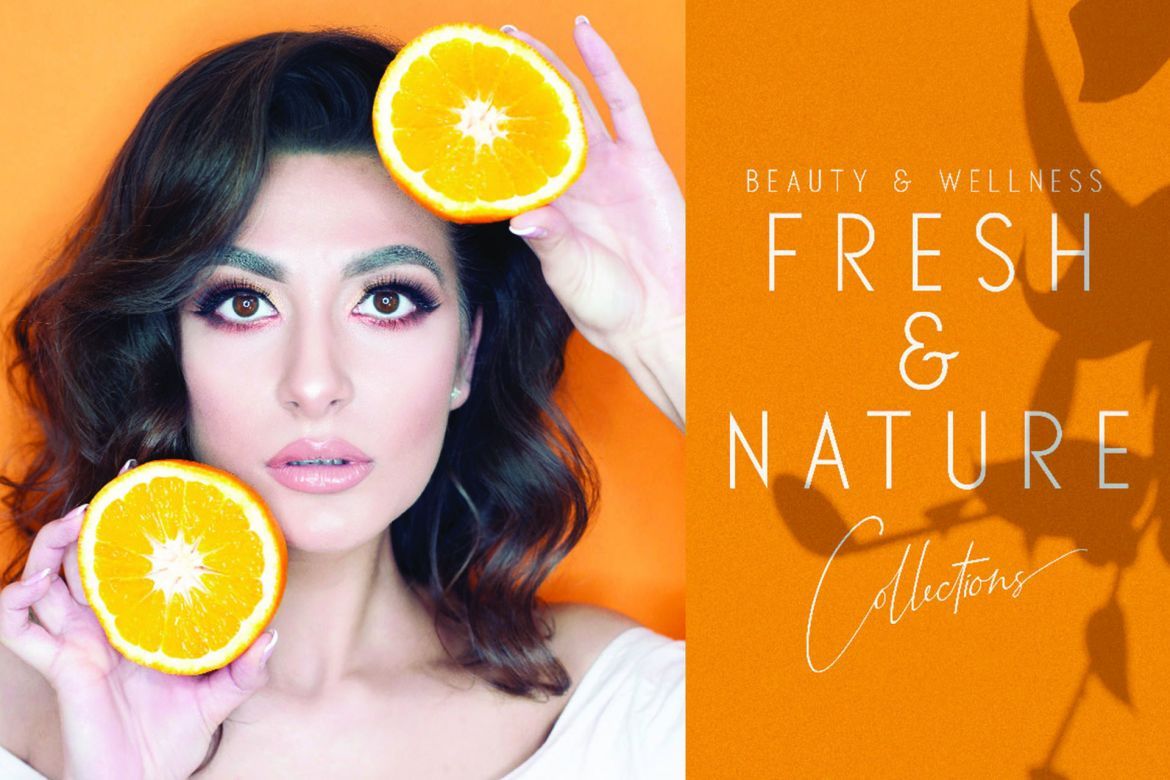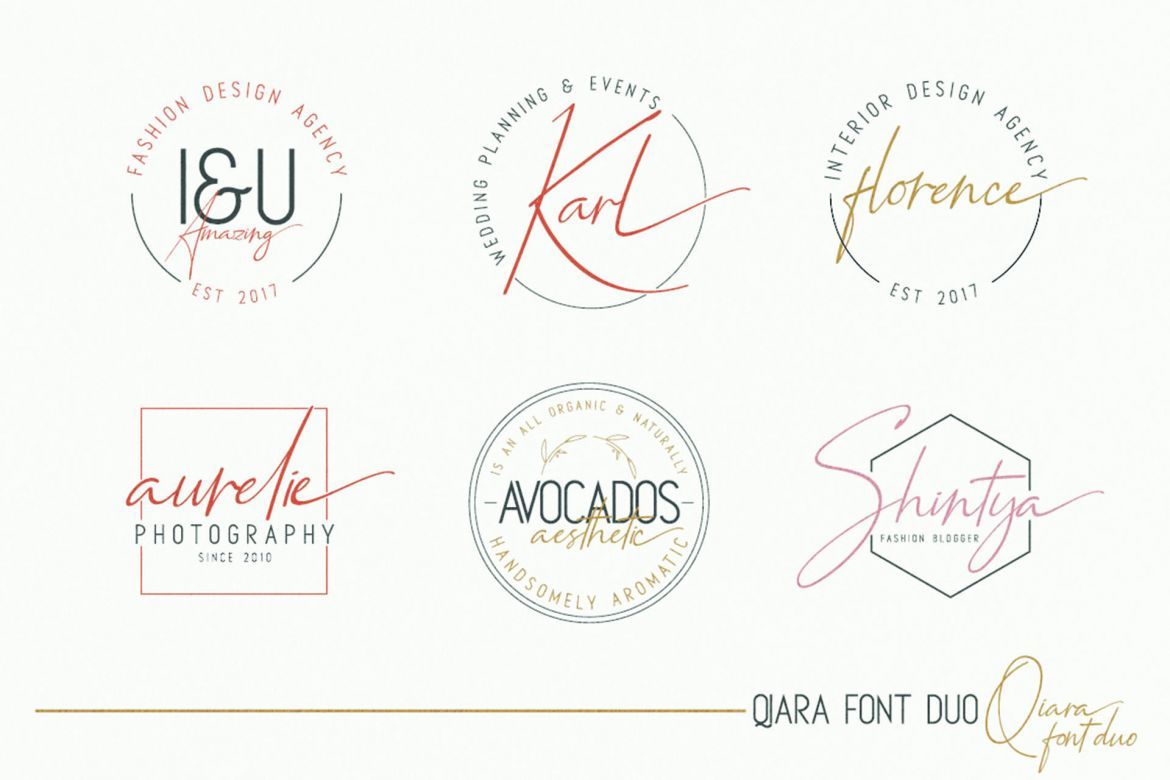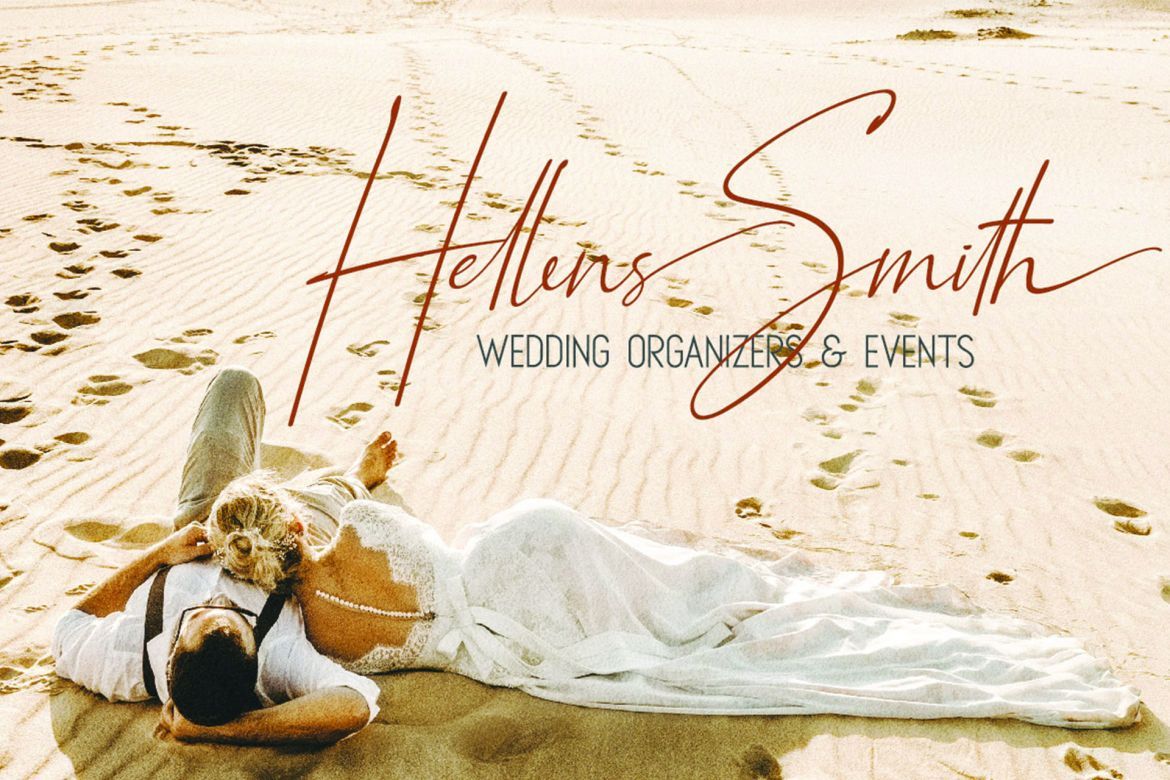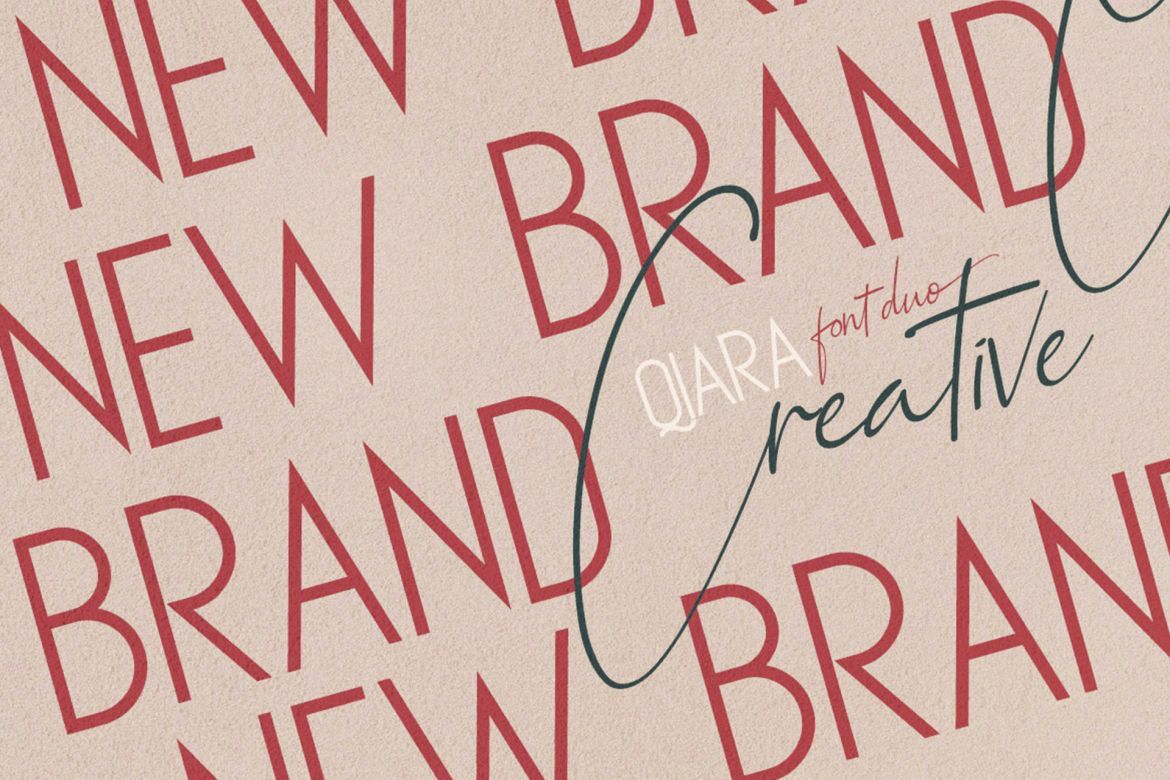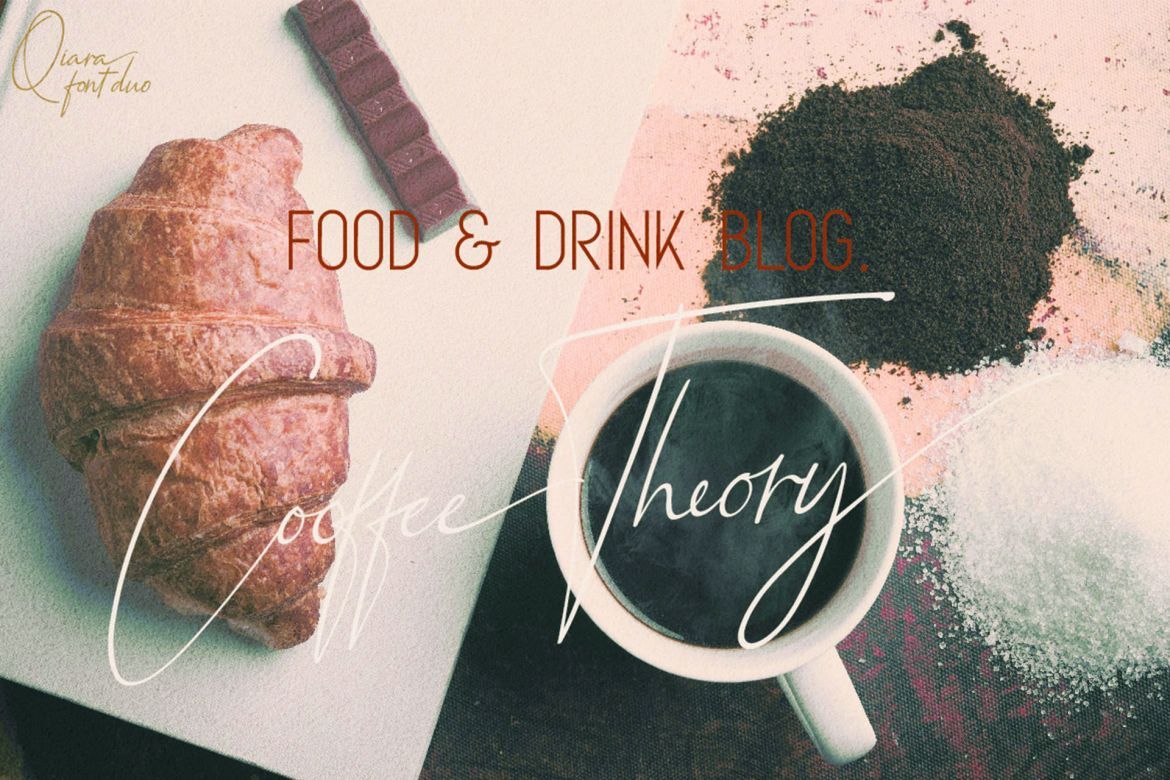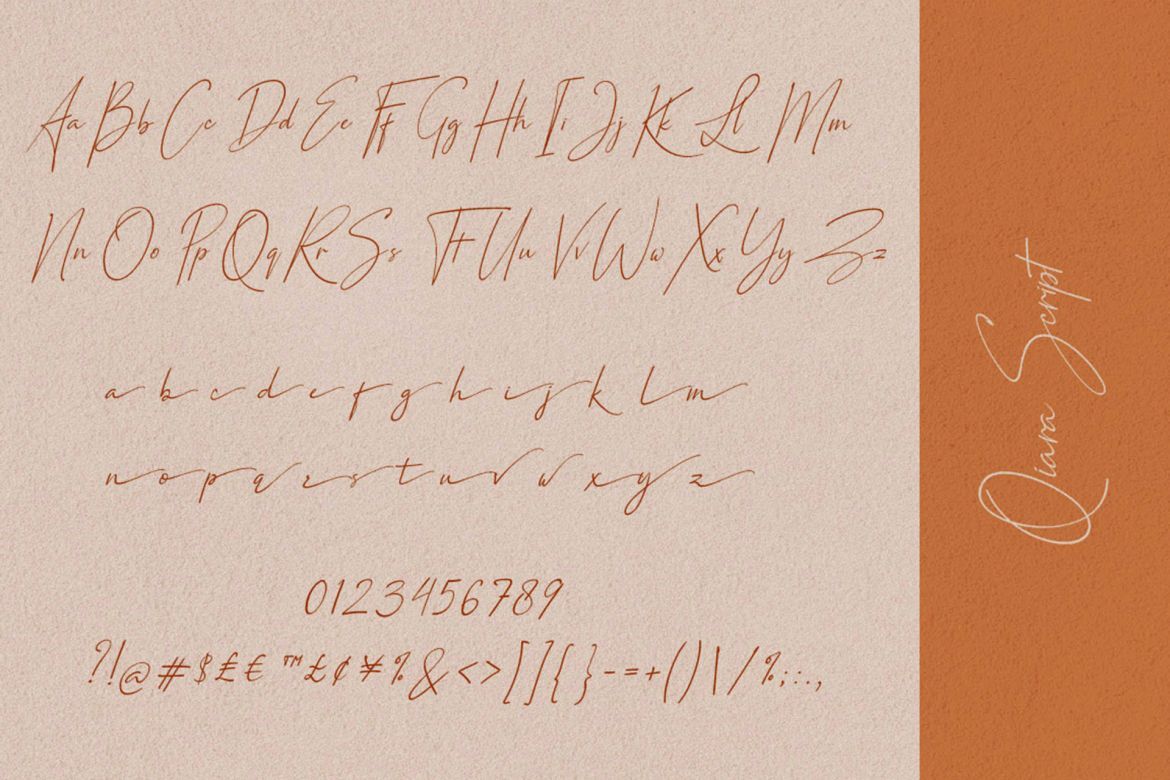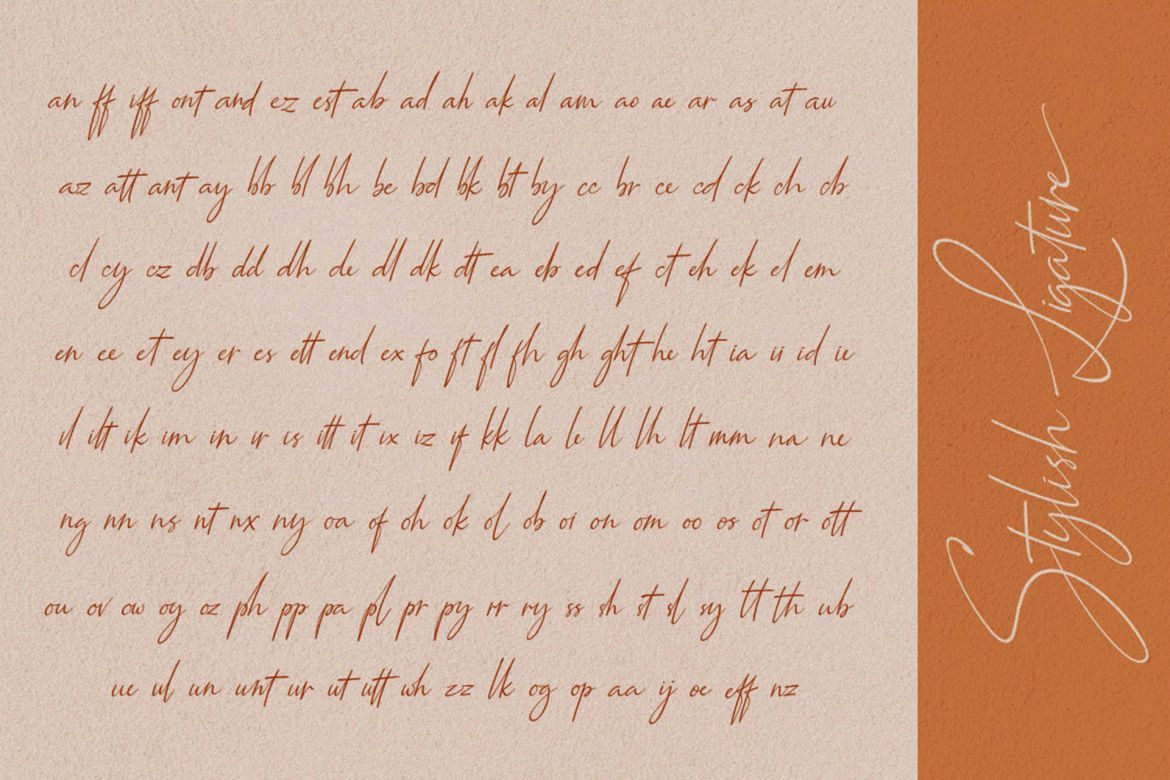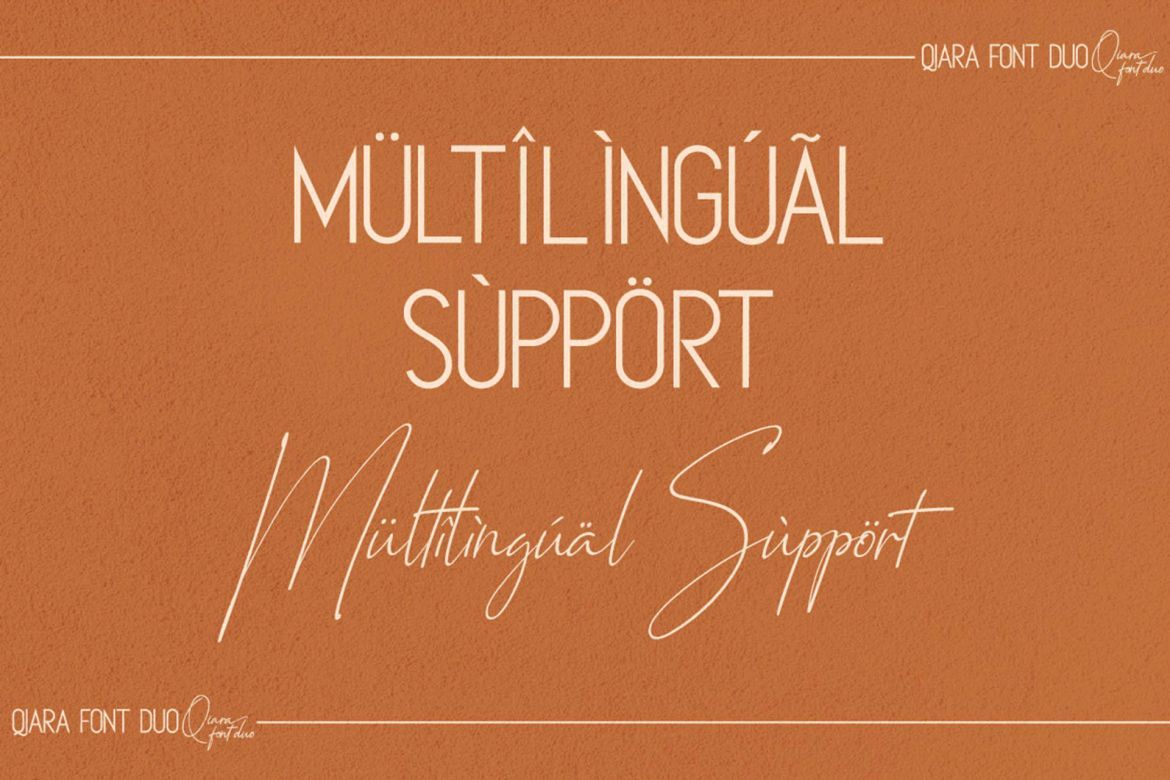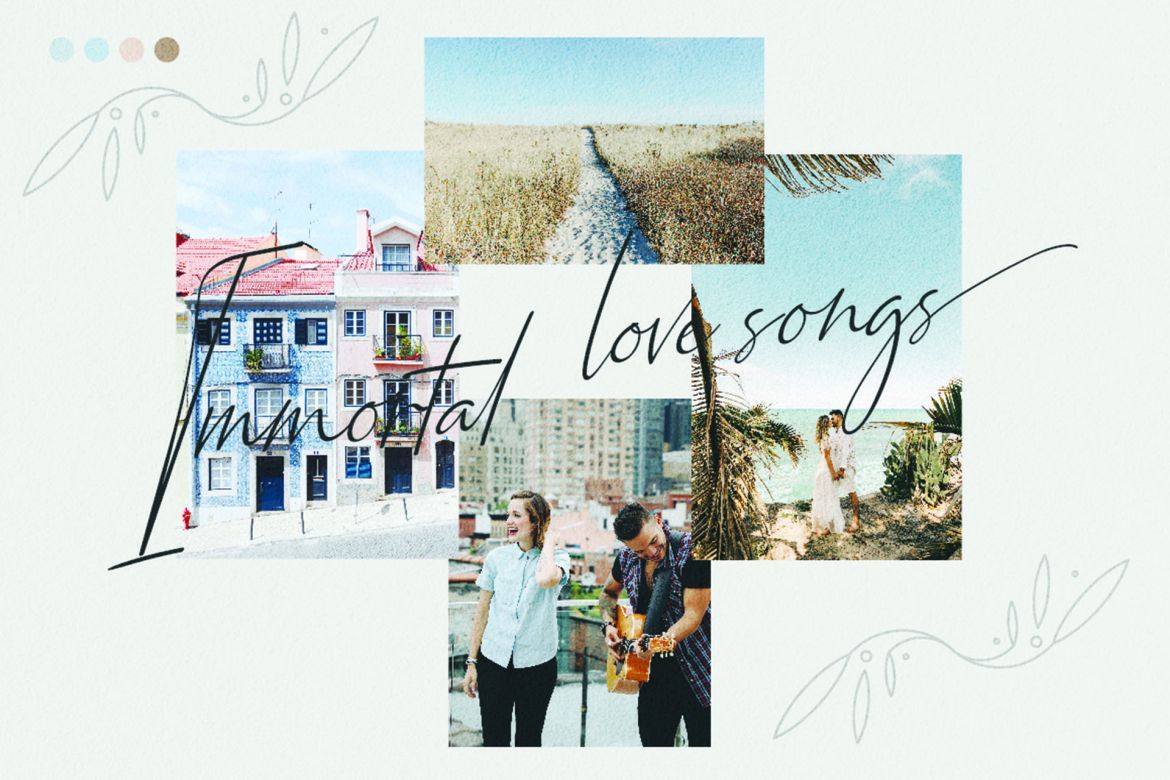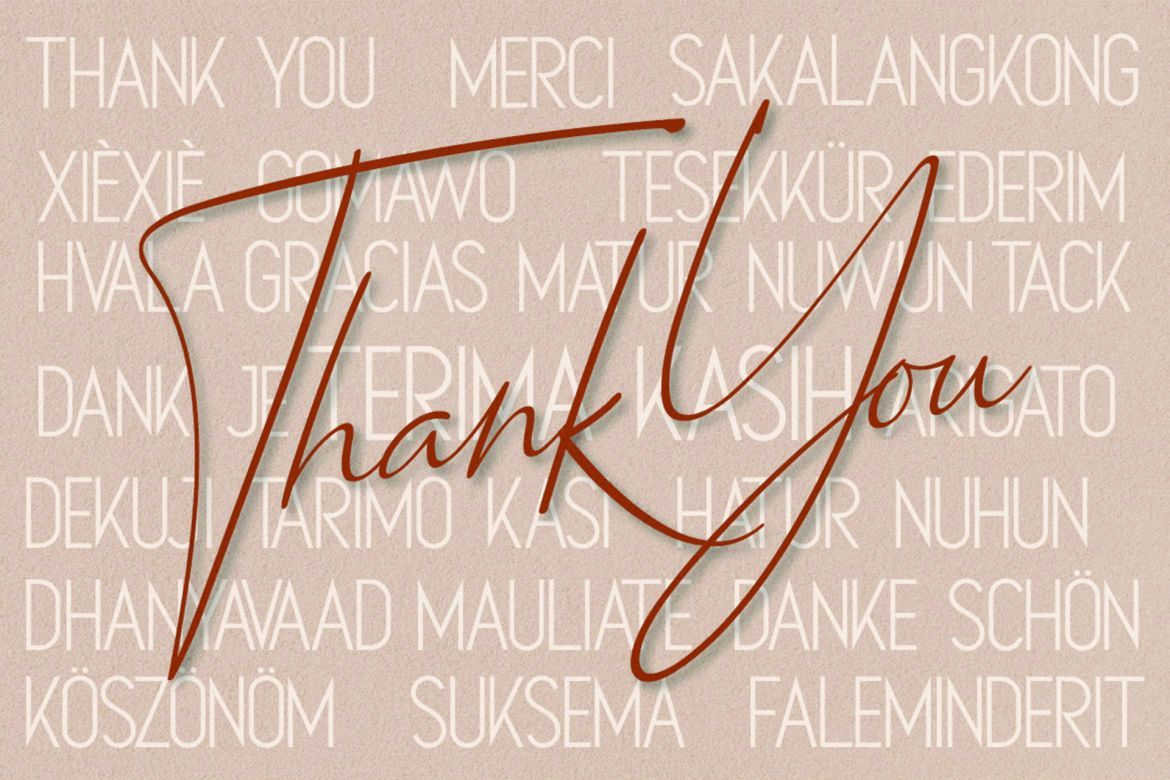
Qiara Collections Font Duo
Hello all around the world ... If you have style and love all the luxuries in life, add a touch of luxury and style to your project too, with the Qiara Font Duo Collection. Qiara Font Duo consists of modern san serif and modern calligraphy, also very suitable for logo branding, wedding invitation, wedding typhography, text quotes, magazine, or anything do you want. take a look at the preview above to get creative inspiration and see what you can make.
• branding,packaging,singage,text quotes
• signature,logos,title,display,magazine